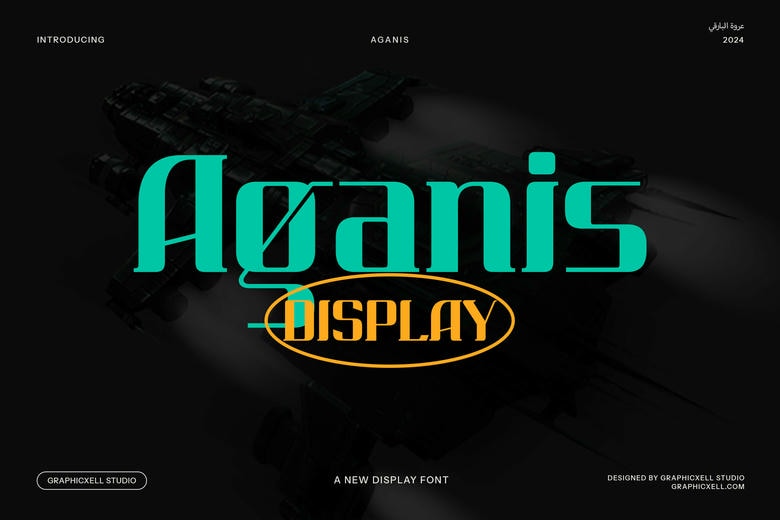
Aganis Font
Aganis is a cutting-edge, modern serif typeface designed for the future. With its precise, rectangular shapes and bold contrasts between thick and thin lines, this font brings a sense of sleek sophistication to any project. Ideal for futuristic designs, Aganis is perfect for applications that demand both clarity and style. Its structured, geometric form makes it stand out in tech branding, digital media, and high-end advertisements.
Aganis combines the timeless elegance of serif fonts with the sharp, clean lines typically associated with contemporary design. The balanced proportions and angular detailing give it a technological and innovative vibe, making it a great choice for websites, logos, films, and product packaging. Its versatile nature ensures it works well in both large-scale headlines and smaller text bodies, maintaining legibility and visual appeal across various media.
This font is especially suited for industries and projects related to technology, science, and modern design. Whether you’re designing a futuristic tech startup logo or a dynamic magazine cover, Aganis provides the perfect foundation. Its unique aesthetic also makes it an excellent choice for creating eye-catching posters and advertisements that demand attention.
With its bold yet refined presence, Aganis Display Font is the ideal typeface to make a strong, forward-thinking statement in your branding, marketing, and digital endeavors.
Aganis Serif Font